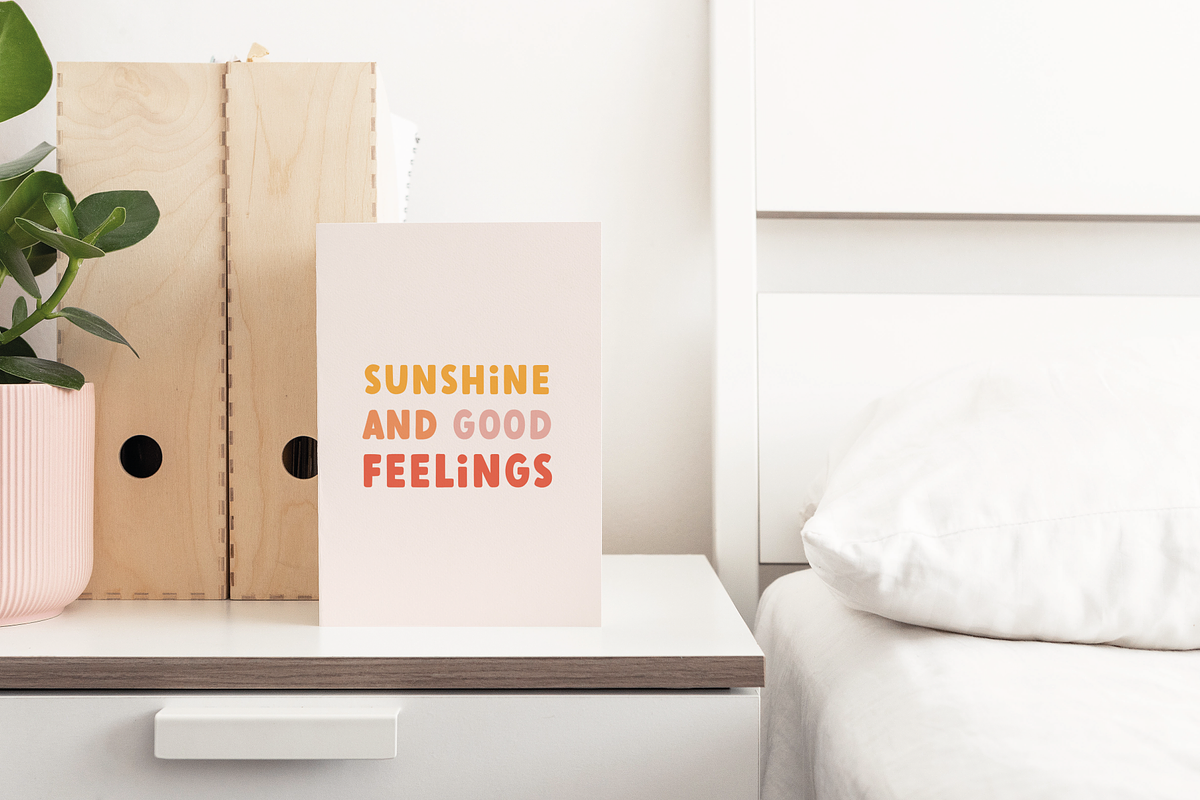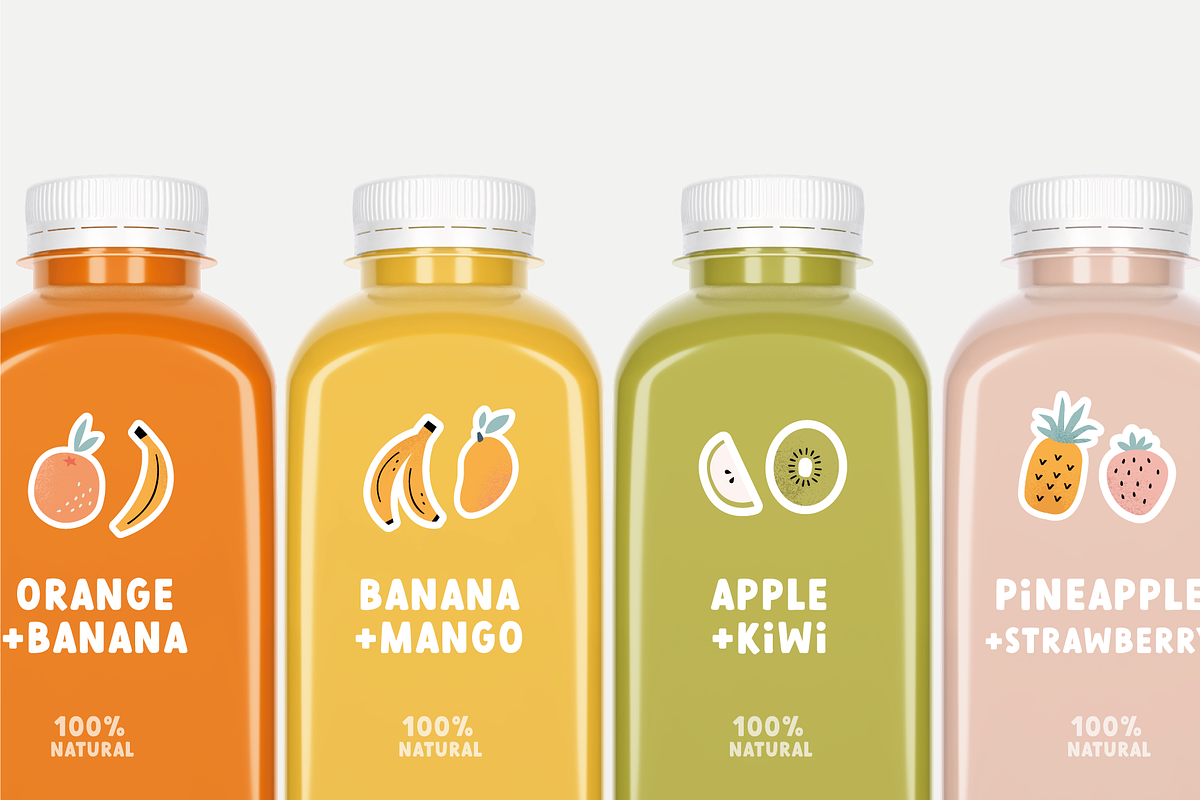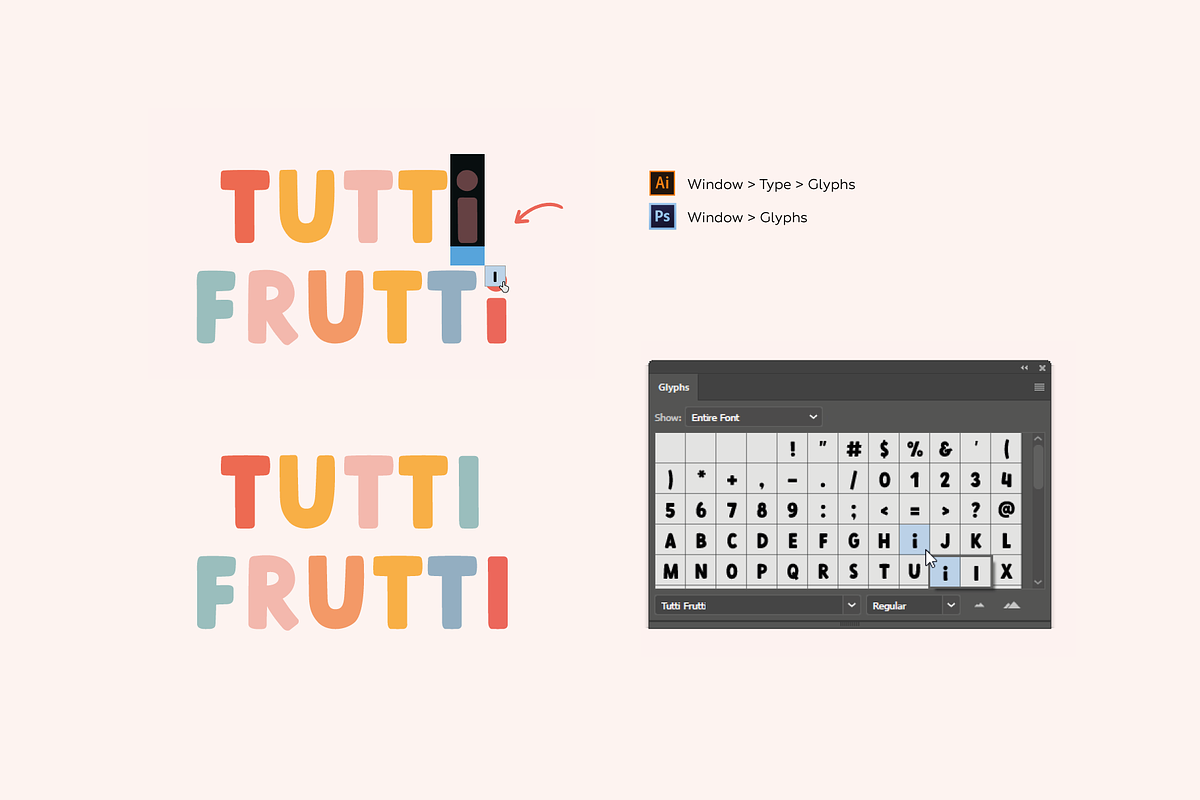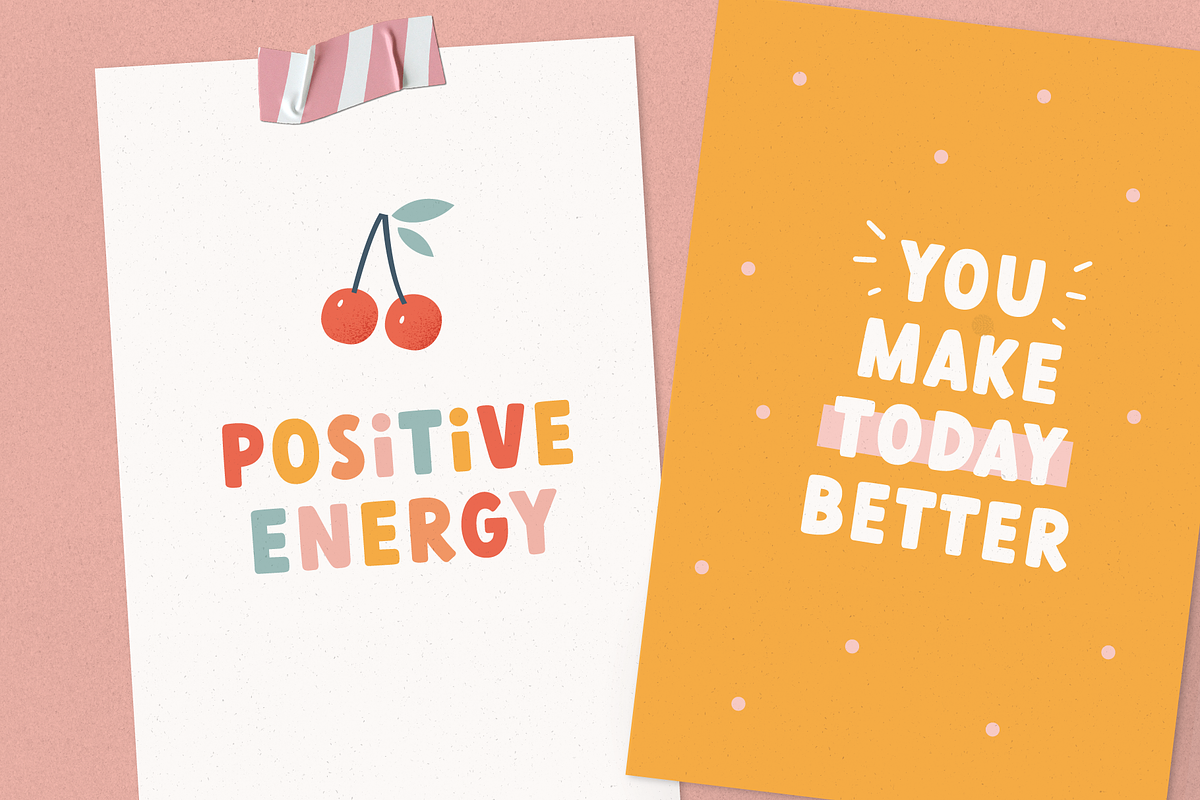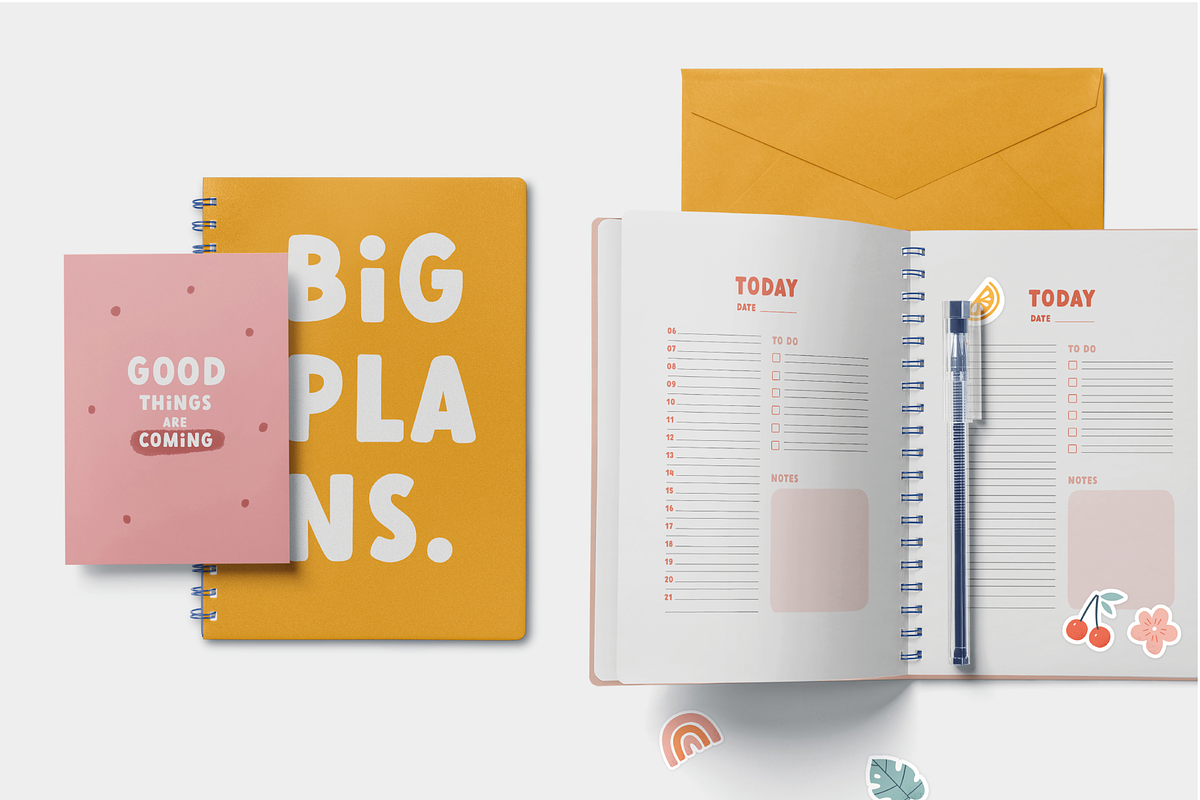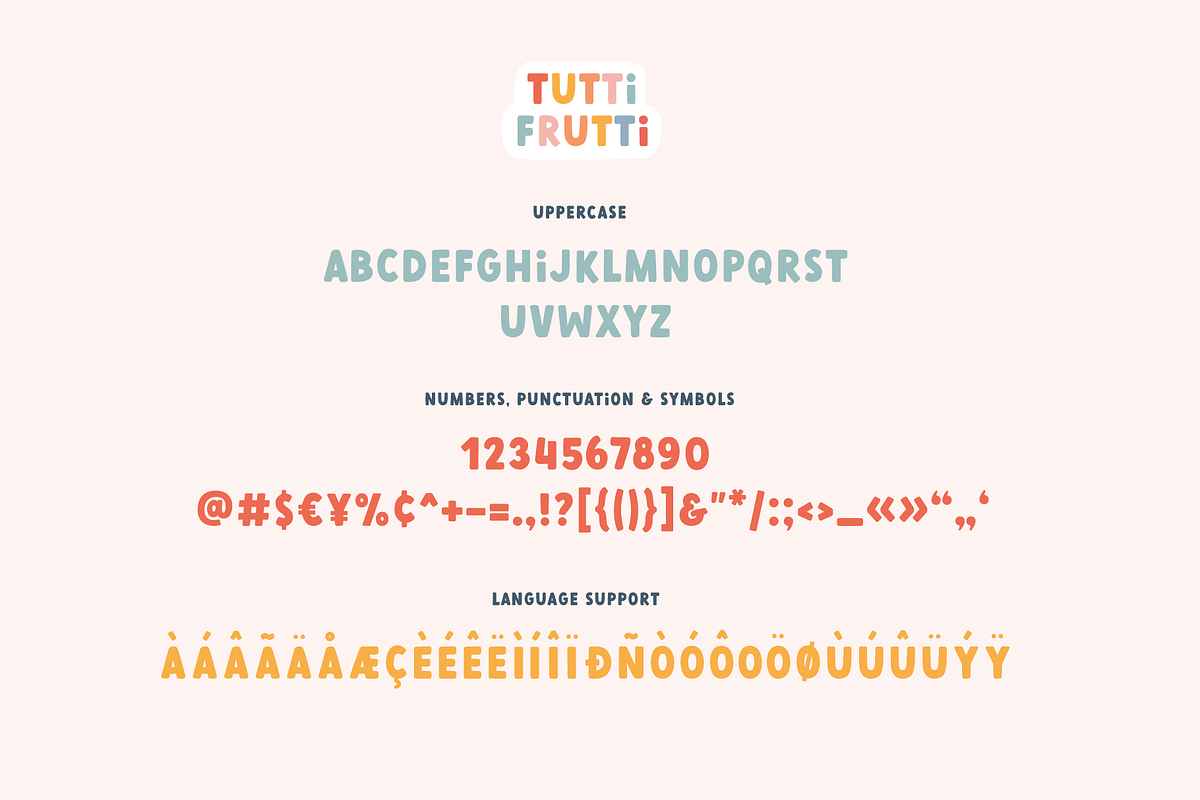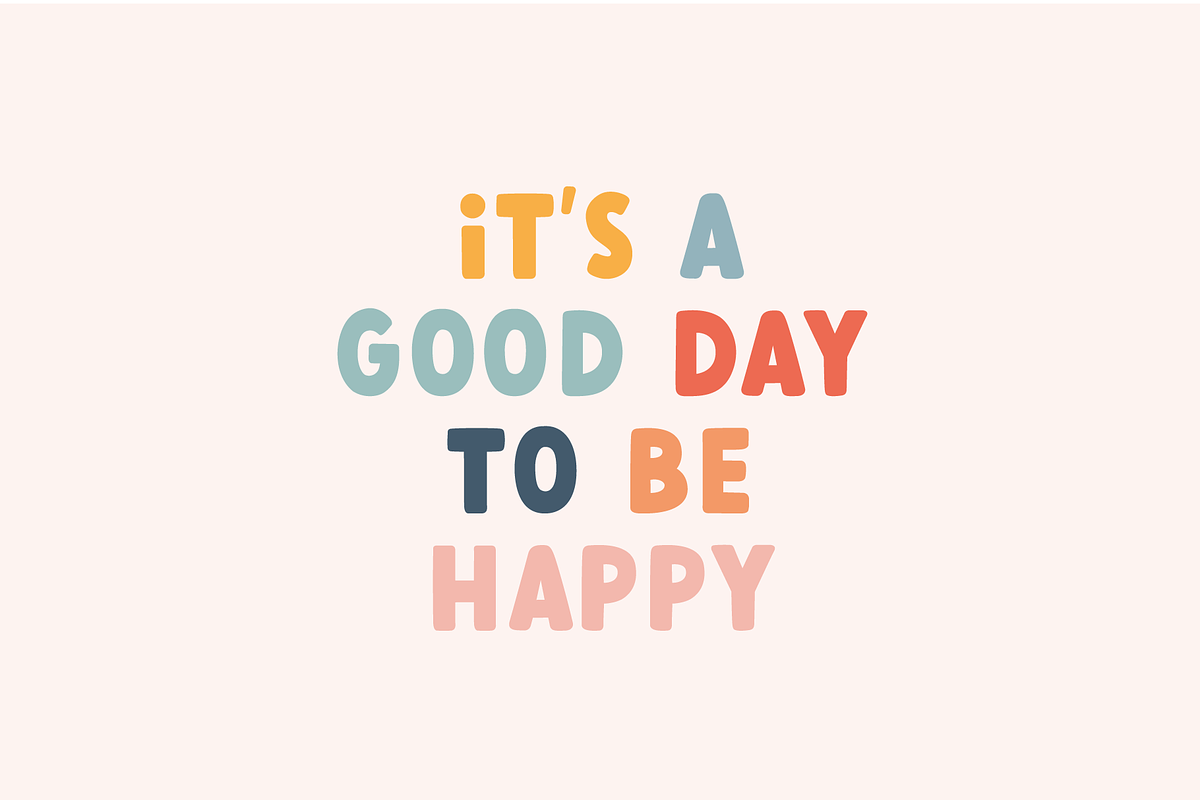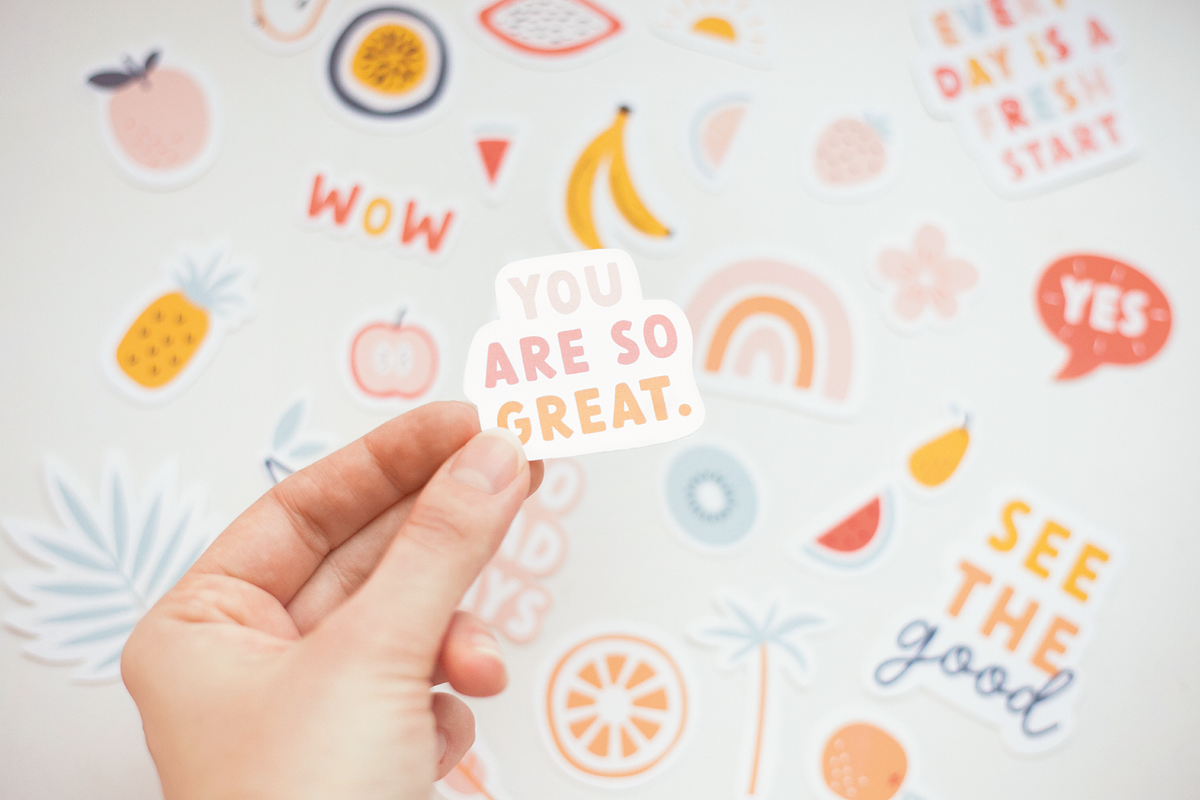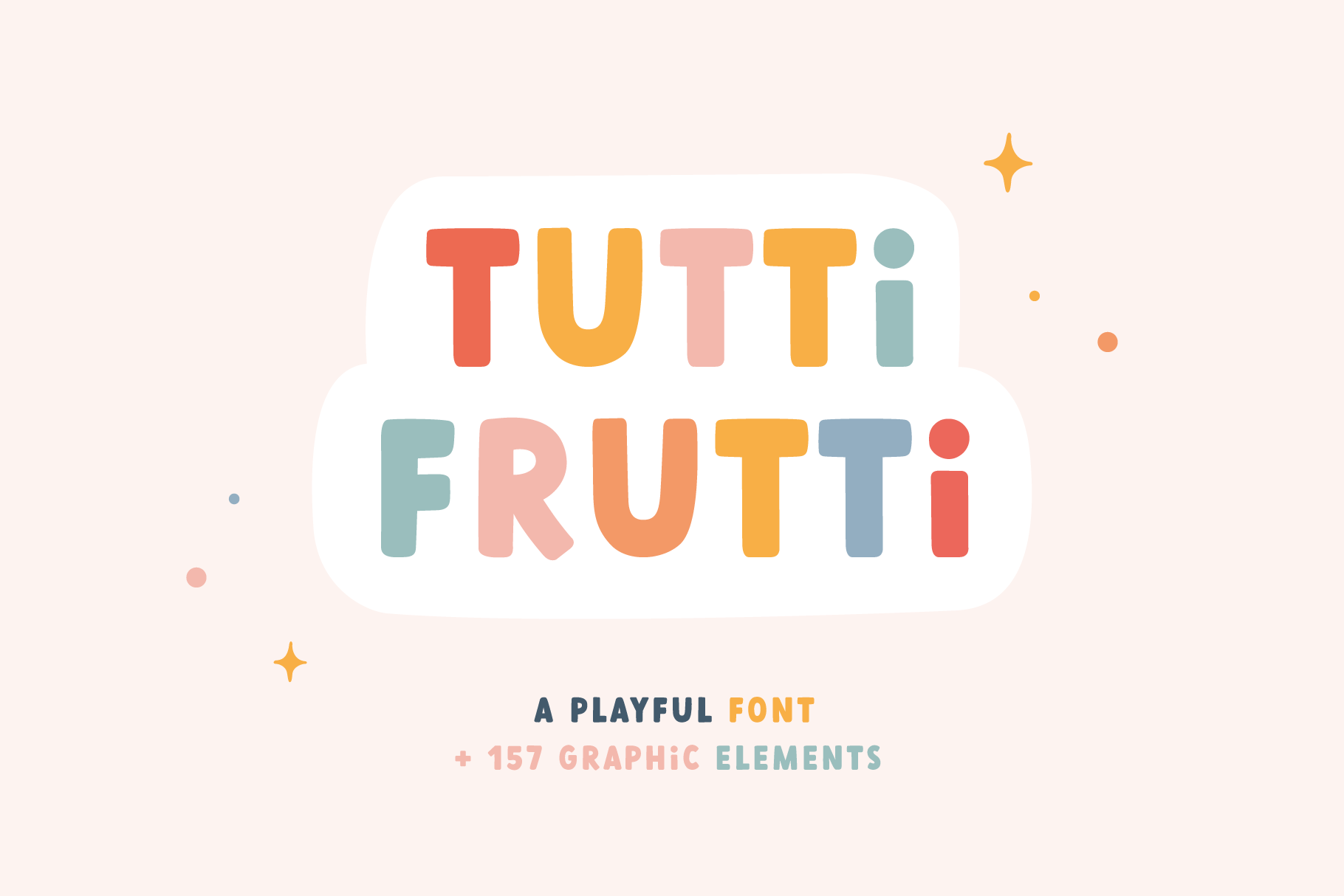
Tutti Frutti | Playful font
Tutti Frutti - a super fun and playful hand-lettered bold typeface. It is perfect for headings, flyer, greeting cards, product packaging, book cover, printed quotes, logotype, apparel design, album covers, etc.
This is such a cute, easy to read font and I appreciate all the extras included. My only suggestion would be to add lowercase letters.